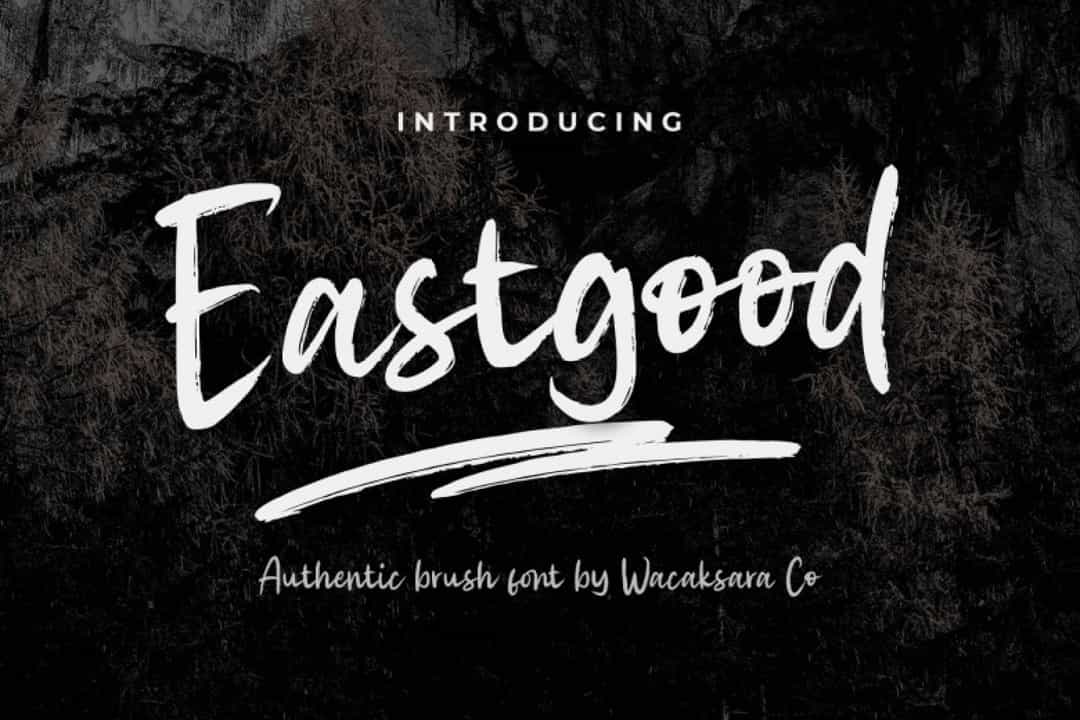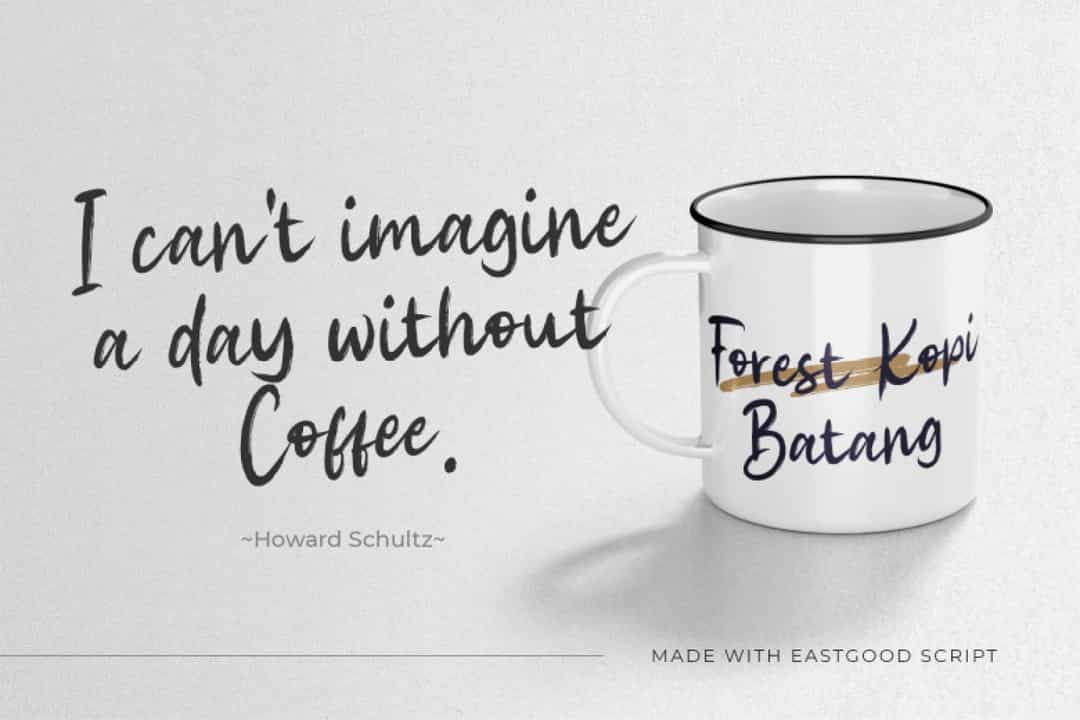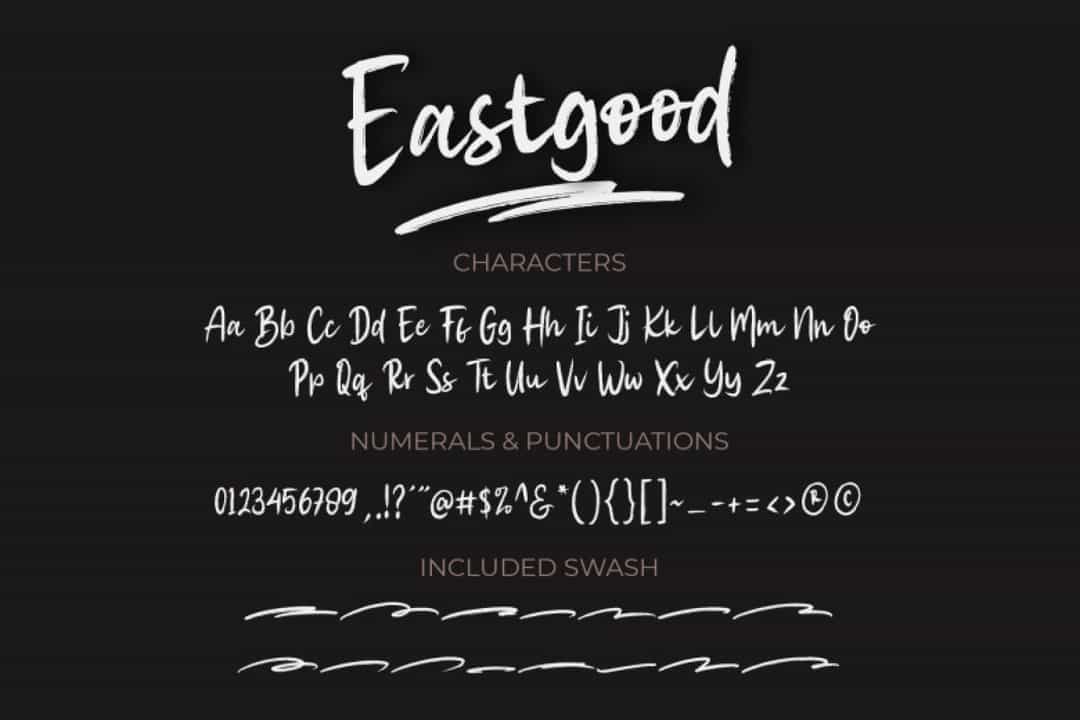
Eastgood can be best described as a fun, brush-written font with casual touches that’s great for use across a range of design concepts – adding both fun and warmth to each of them! It makes an impressionful first impression!